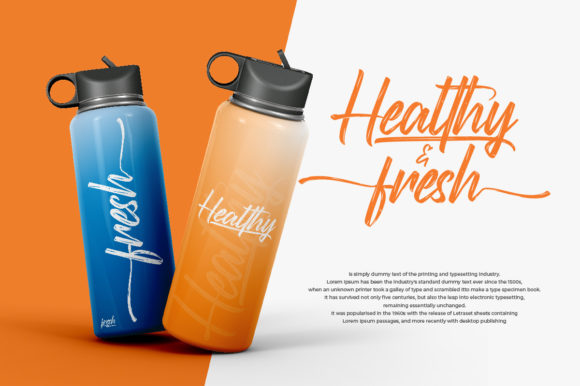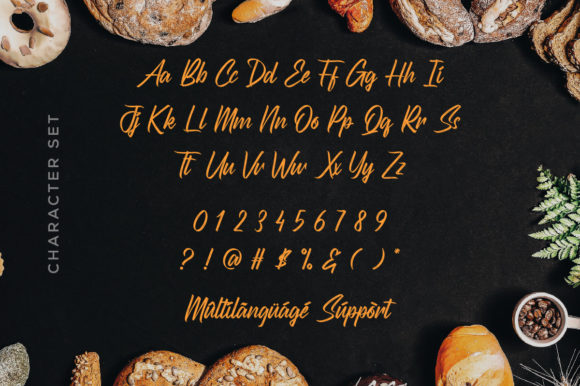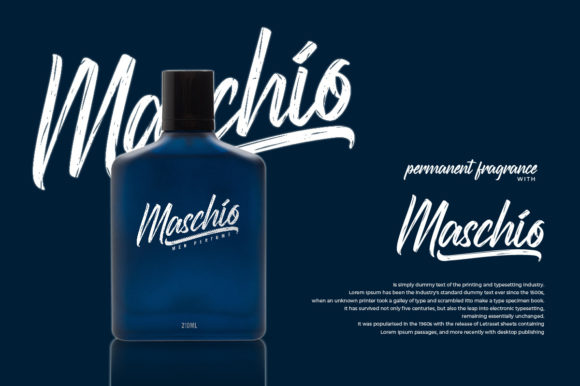
Introduction to Scatterings Font
Scatterings is a lovely and timeless brushed handwritten font.
It is the best choice for creating eye catching logos, branding and quotes This font is PUA encoded which means you can access all of the glyphs and swashes with ease.
Key Features of Scatterings Font
Why Choose Scatterings Font?